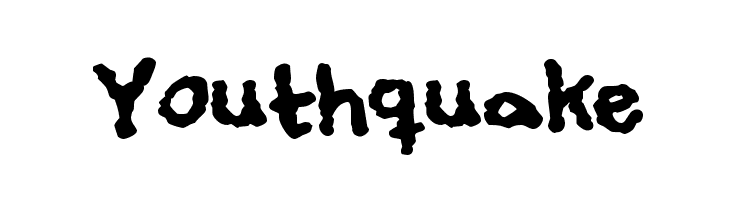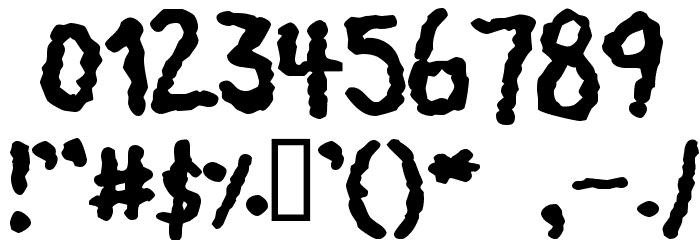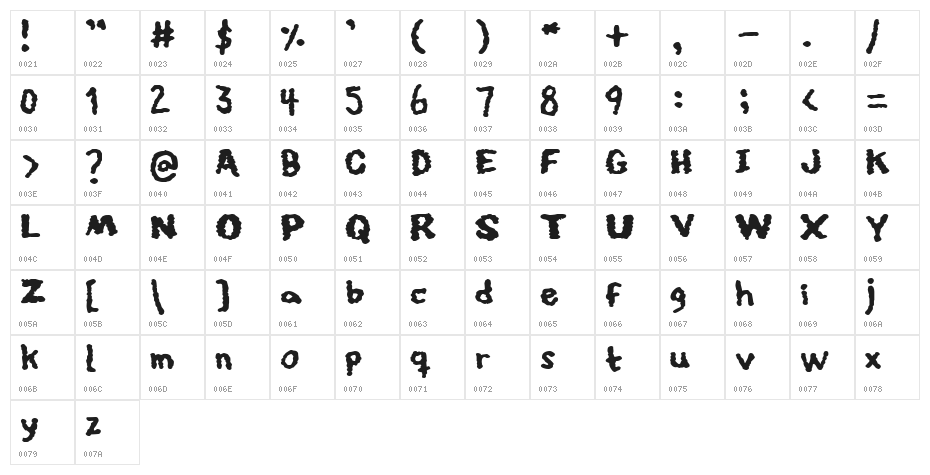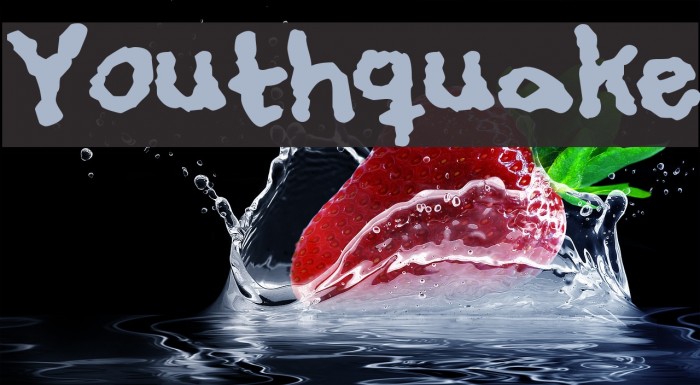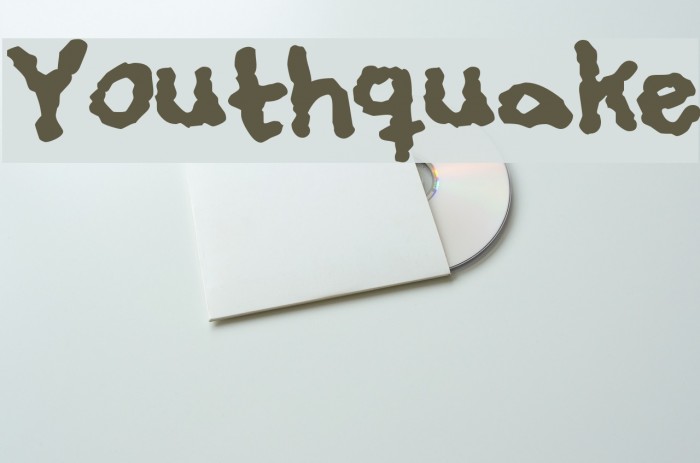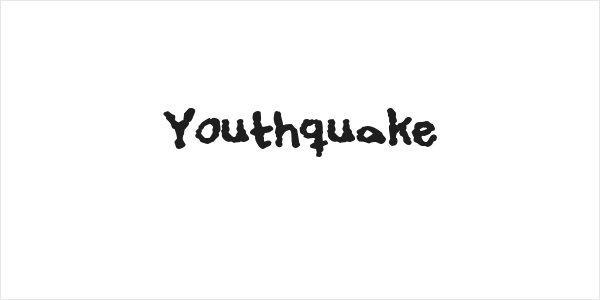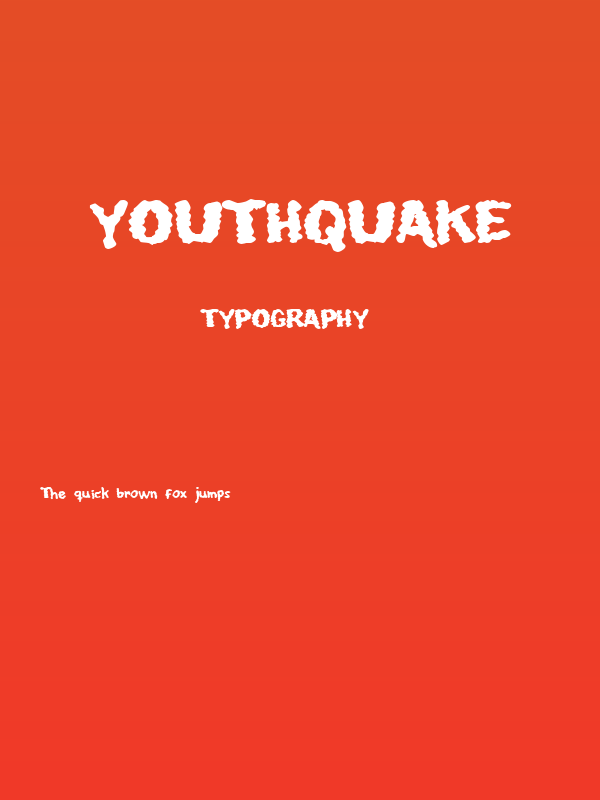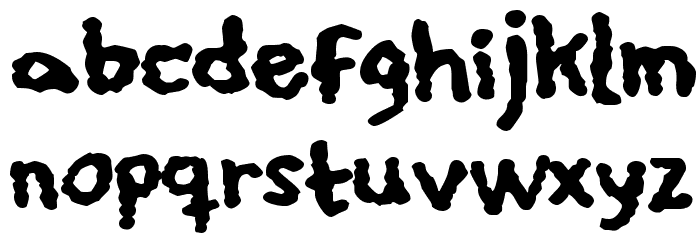
Youthquake Font
Youthquake Description
This font features a bold and playful design with a bubbly, organic texture that gives it a lively and dynamic appearance. The characters are irregularly shaped, with a hand-drawn feel that adds a sense of whimsy and creativity. The uppercase and lowercase letters maintain a consistent style, with rounded edges and varying stroke thicknesses that create a sense of movement. The numerals and special characters follow the same playful aesthetic, making this font suitable for projects that require a fun and informal touch.
| Proposed Projects | Ideal for children's books, playful branding, event posters, and creative social media graphics. |